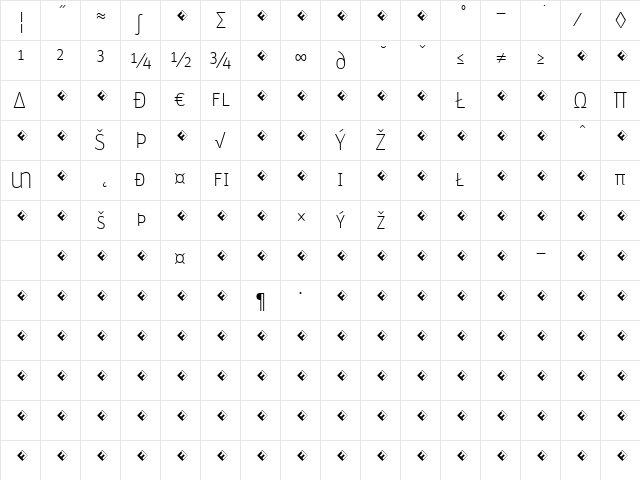
Unit-ThinSCExpert Regular Font Preview
Unit-ThinSCExpert Regular
| Foundry | Erik Spiekermann, Christian Schwartz; published by FontShop International for the FontFont Library |
| Designer | Erik Spiekermann, Christian Schwartz |
Design Context for Unit-ThinSCExpert Typeface
Unit-ThinSCExpert takes a measured approach to typography — its balanced proportions and neutral character make it a reliable workhorse for both digital and print work. The delicate stroke weight brings airiness and refinement to layouts.